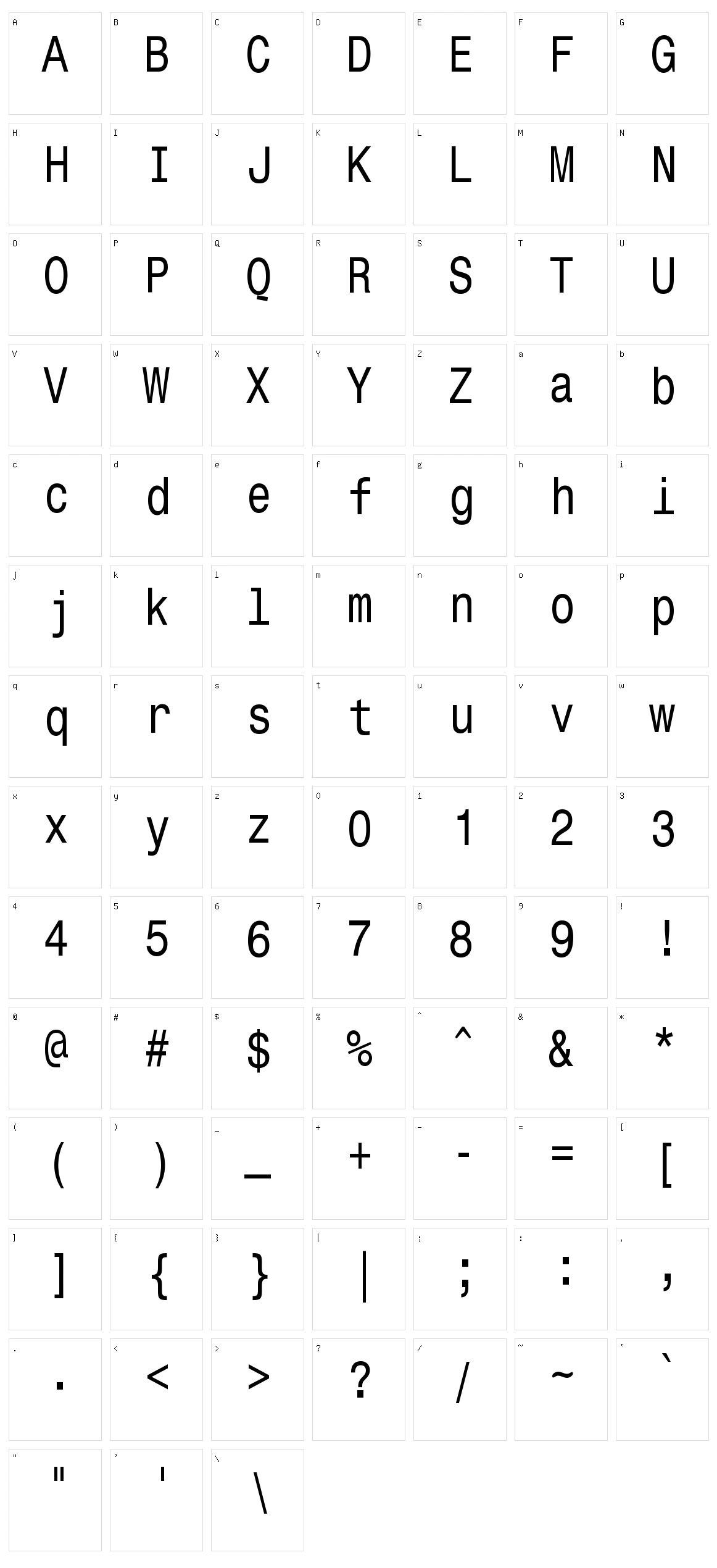
The free font Monospace Typewriter is carefully designed by Manfred Klein, showcasing a thoughtful balance of creativity and usability and falls under the Fixed width font style. When you download the ZIP file, it contains only 22.45 KB of font files, making it lightweight and quick to download. Please review the license details below to understand permitted usage and distribution rights. If license information is not available, we recommend using this font for personal projects only or contacting the author directly for commercial usage permissions.